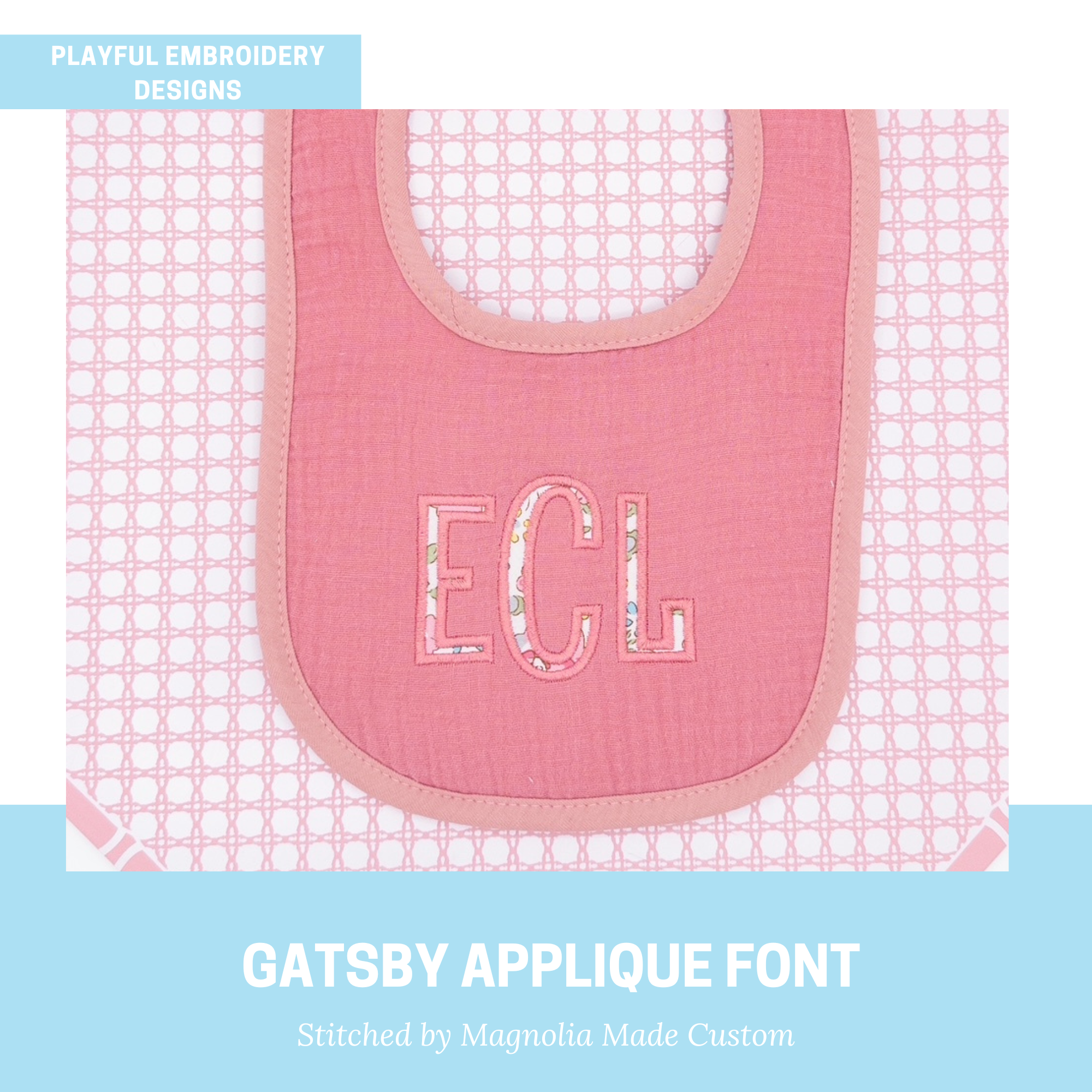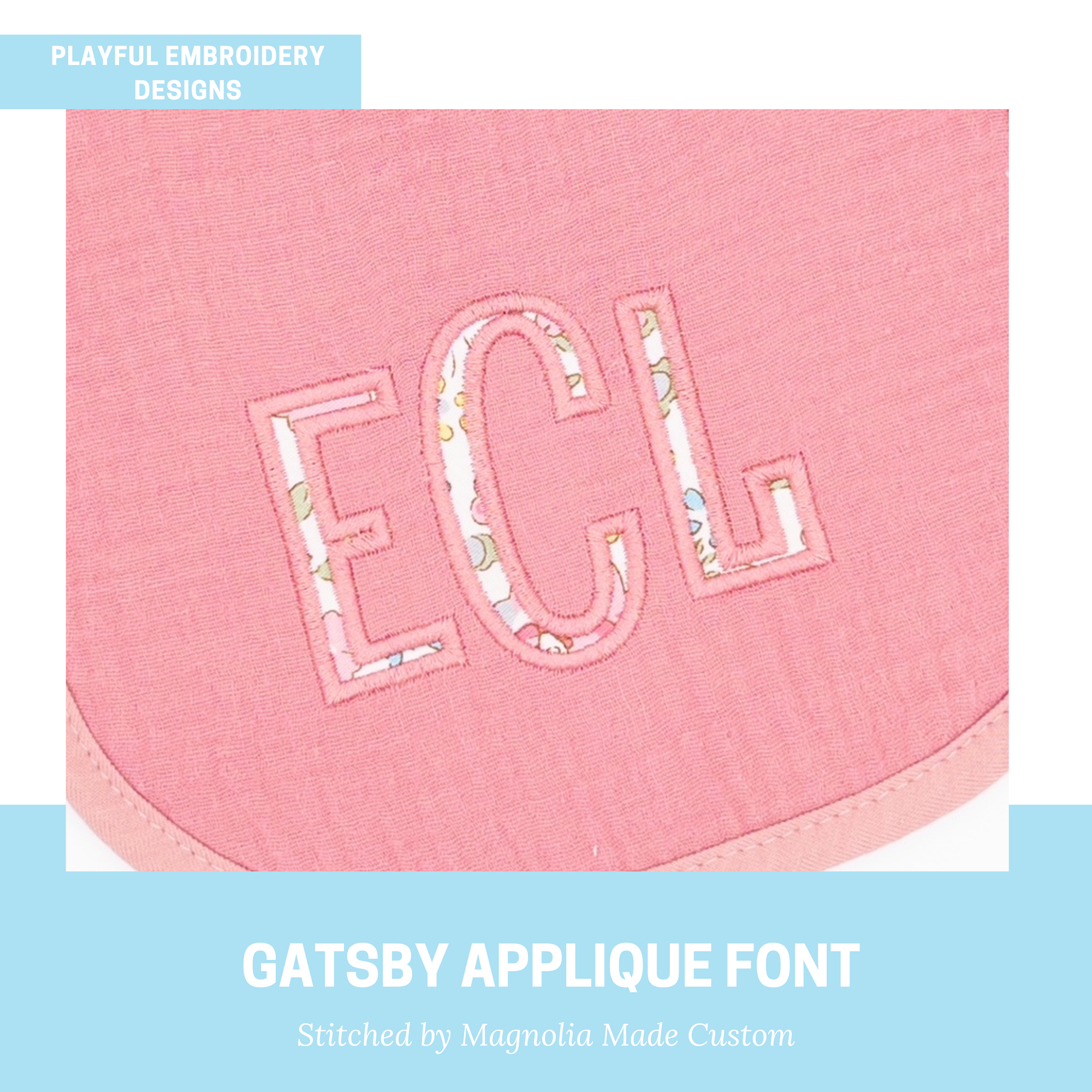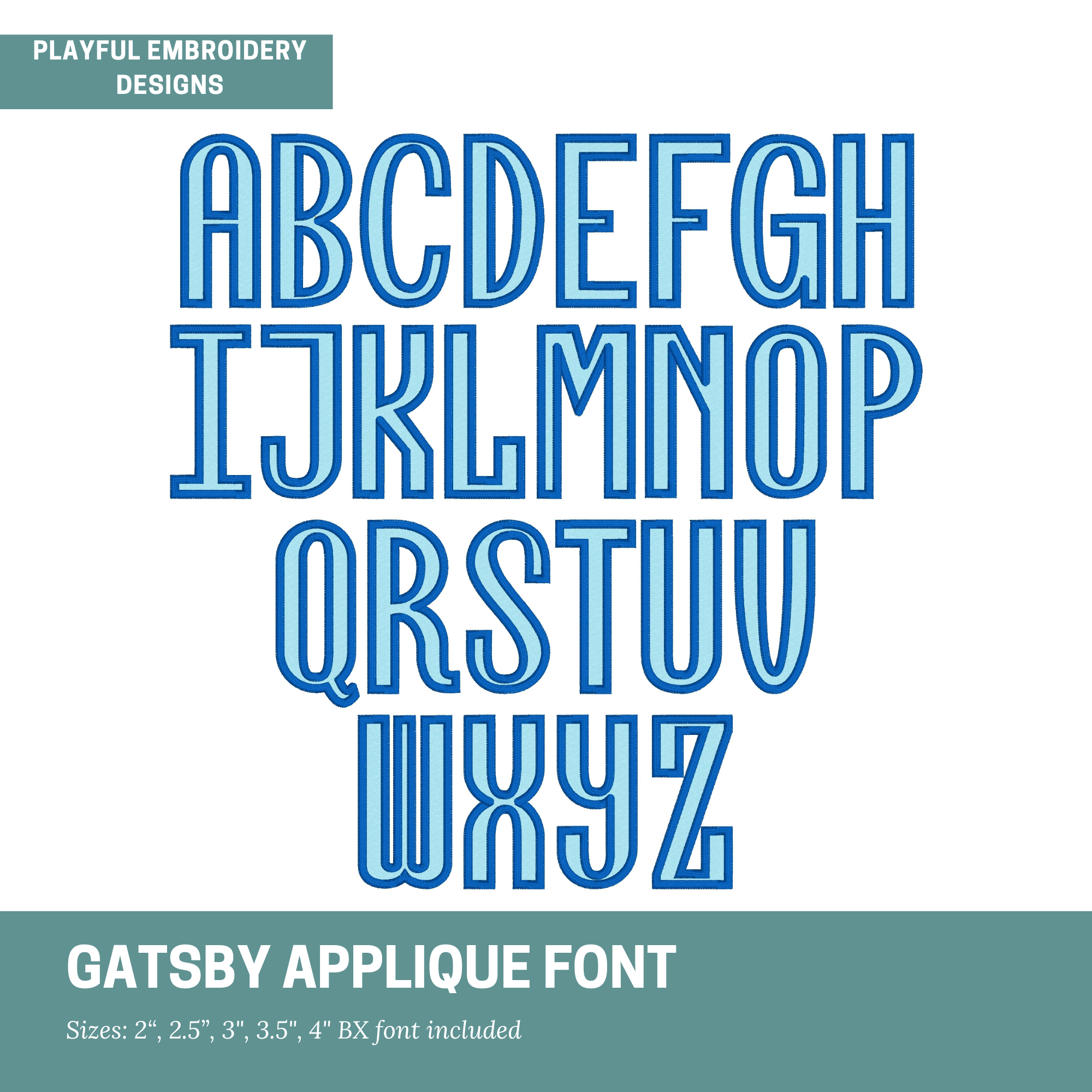
Block Applique Monogram, Gatsby Satin Stitch Embroidery Font (Digital Download)
Introducing the Gatsby satin stitch applique font for machine embroidery. This modern block applique font is easy to use and so versatile.